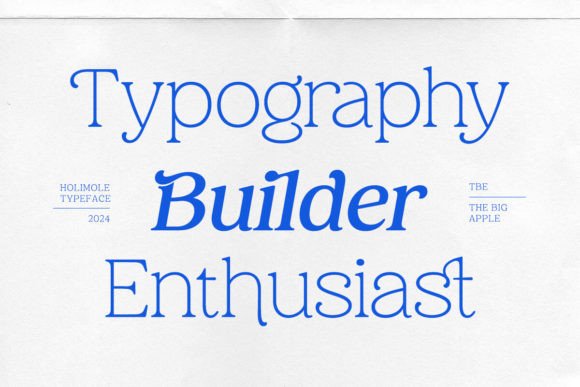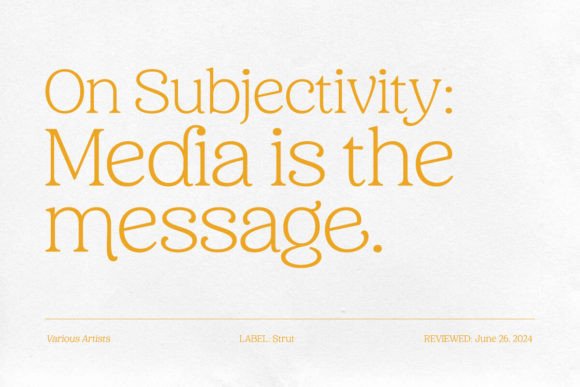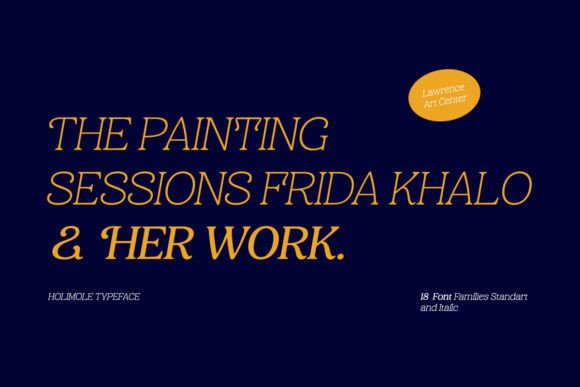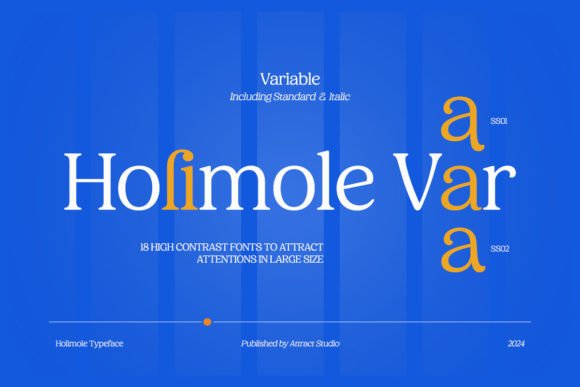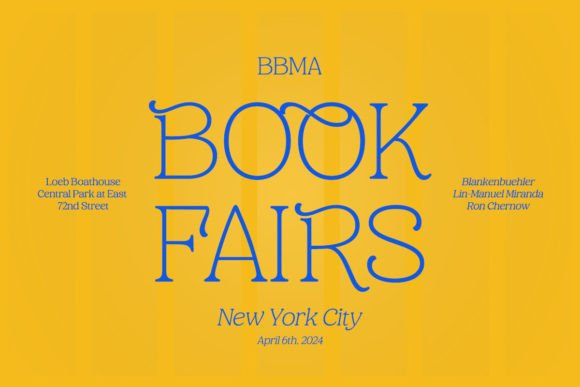
Introduction to Holimole Font
As a designer, have you ever found yourself struggling to bring a creative project to life, only to be held back by the limitations of your font selection? The perfect combination of elegance and functionality can be a game-changer, and that’s exactly what the Holimole Font offers.
Imagine being able to effortlessly switch between a delicate, high-quality font for a subtle touch and a bold, powerful version to drive home your message. With the Holimole Font, this is no longer just a dream – it’s a reality. This versatile design resource is perfect for designers who want to take their creative projects to the next level.
Whether you’re working on a free download project or a paid commission, the Holimole Font is an invaluable tool that will elevate your designs and leave a lasting impression on your audience. With its transparent background and range of weights, this font is a must-have for any serious designer looking to add some sophistication and style to their work.
Key Features of Holimole Font
- Transparent background for easy layering and compositing
- Includes 100+ glyphs and characters for versatile use
- Designed with a modern aesthetic, suitable for digital and print applications
- Perfect for branding, logos, typography, and graphic design projects
Honest Review: Holimole Font
I recently had the opportunity to work with the Holimole Font, and I must say, it’s a fantastic addition to any designer’s toolkit. As a high quality design resource, it’s perfect for creative projects that require a unique touch.
- Highly customizable: The font’s unique design makes it easy to customize to fit your specific design needs.
Overall impression: I’m thoroughly impressed with the Holimole Font. It’s a fantastic design resource that’s perfect for creative projects, and its high quality design makes it a joy to work with. If you’re looking for a unique and versatile font, the Holimole Font is definitely worth checking out.
Tips for Getting the Most Out of Holimole Font
To get the most out of the Holimole Font, use it on a transparent background to create a clean and modern look. You can also experiment with different font sizes and styles to create a unique visual effect.
The Holimole Font is ideal for various creative projects, including:
- Brochure design
- Infographic design
- Website design
Does the Holimole Font have a transparent background?
Yes, the Holimole Font has a transparent background, making it ideal for use in graphic design and digital art projects where a clear background is required. The font’s transparent background also allows for easy layering and composition in design applications.